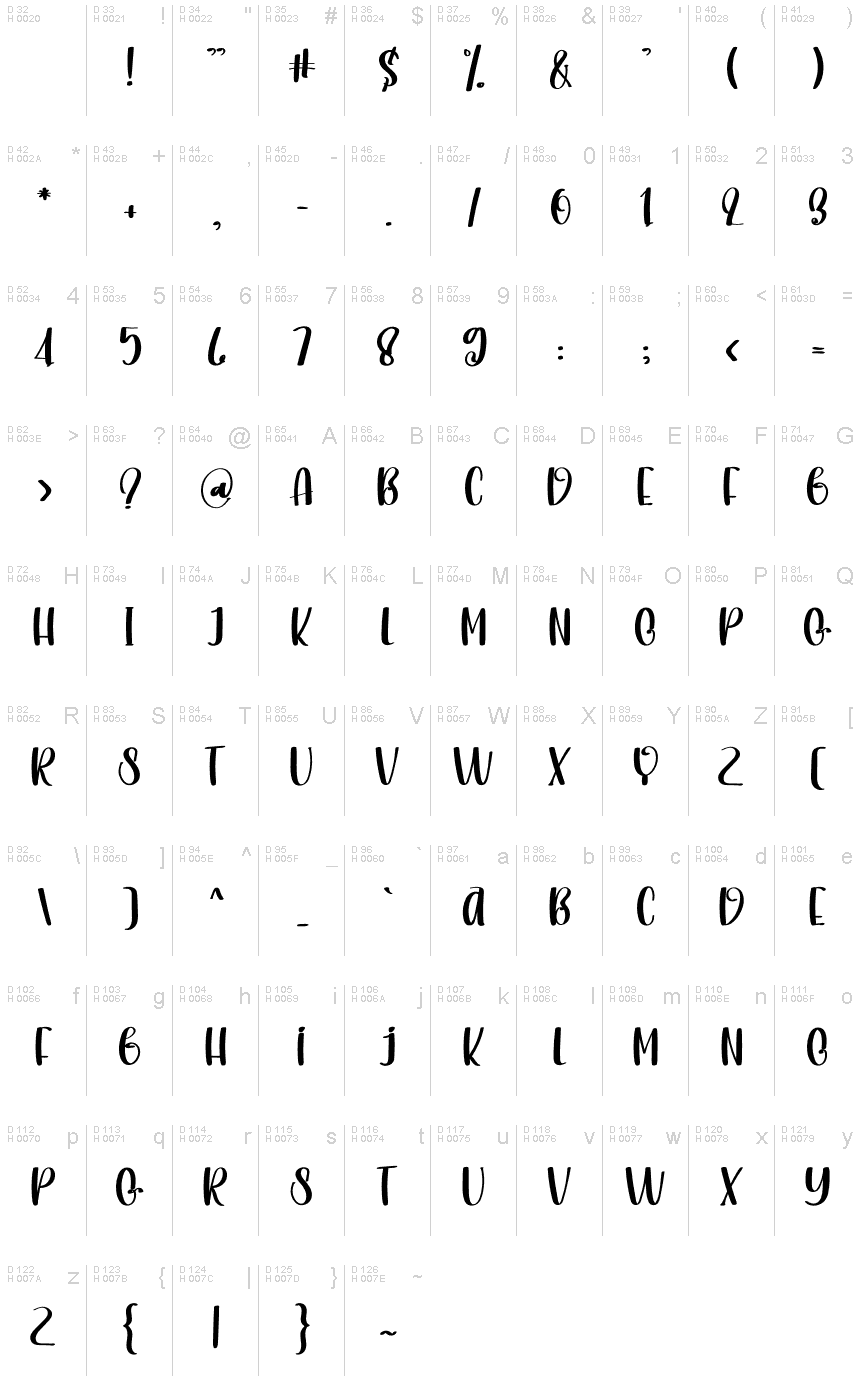
Pink Pastel
Pink Pastel, a delightful creation by Inermedia Studio, is a charming handwritten font with a marker-style touch. Its semi-bold weight adds a dash of confidence to any project, making it perfect for eye-catching logos and branding materials.
The semi-condensed width ensures readability in both print and digital mediums, making Pink Pastel an excellent choice for social media graphics, invitations, and playful children's book illustrations. Let this whimsical font breathe life into your designs as it effortlessly captures the essence of joy and creativity.